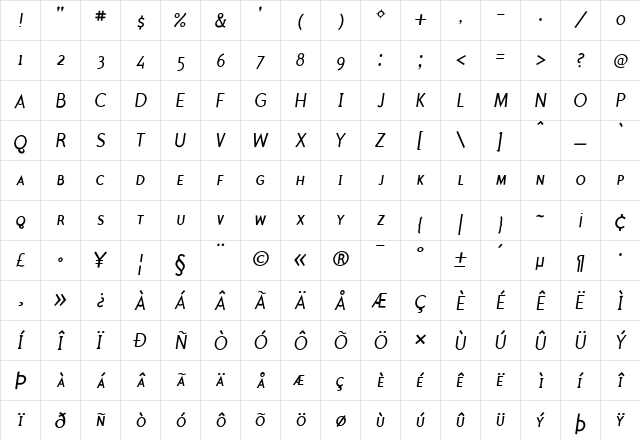
Polymer Caps Book Italic
Design Context for Polymer Caps Typeface
Polymer Caps offers clean, dependable letterforms without strong stylistic allegiance, making it a practical choice for designers who need flexibility. The dynamic lean of this cut emphasises speed and emphasis in any layout.
Pro Tip: Use Polymer Caps for emphasis, pull quotes, and subheadings where its slanted energy can add rhythm to the layout.